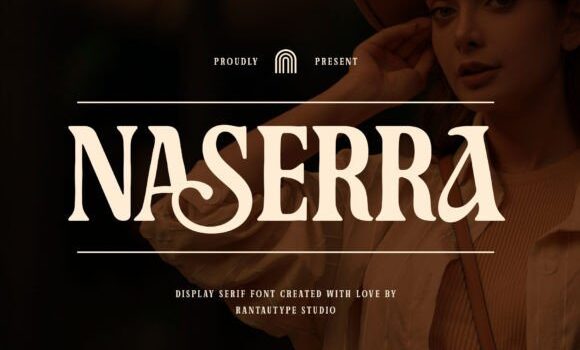
naserra
Naserra Font – Free Download Introduction to Naserra Font Naserra is an elegant and bold serif font. 📸 Preview Gallery 6 images 📌 Product Name Naserra Font 👤 Author RantauType 📂 Category Explore ⬇️ Download Naserra Font FREE Free Download